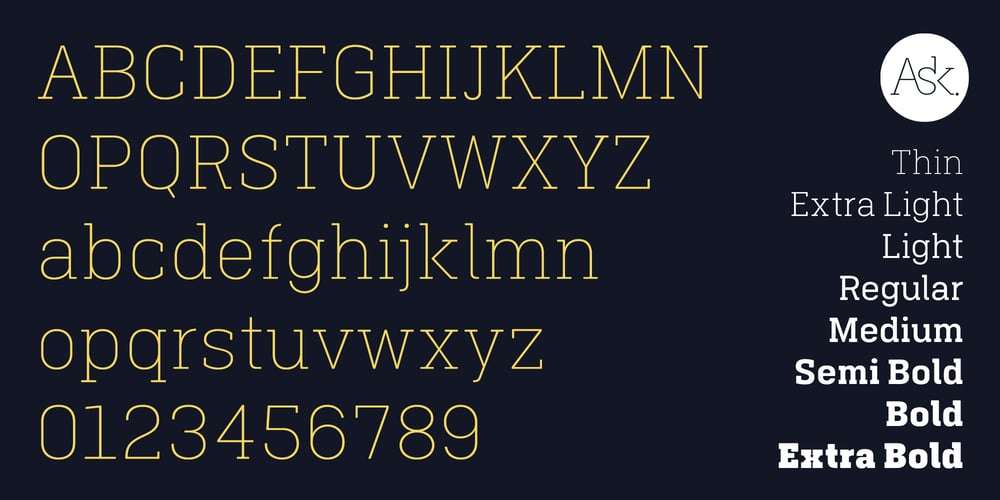
Dolmengi Font Family was designed by Seung Hyub Lee and published by Ask Foundry. Dolmengi contains 8 styles and family package options. Introducing [Dolmengi]—a sleek slab serif font with refined edges, balancing solidity and softness. From the elegant ‘Thin’ to the bold ‘Extra Bold,’ it offers 8 versatile weights for visual hierarchy. Designed for clarity, Dolmen features generous letter spacing, lowercase figures, and ligatures. Elevate your design with this comprehensive font family!